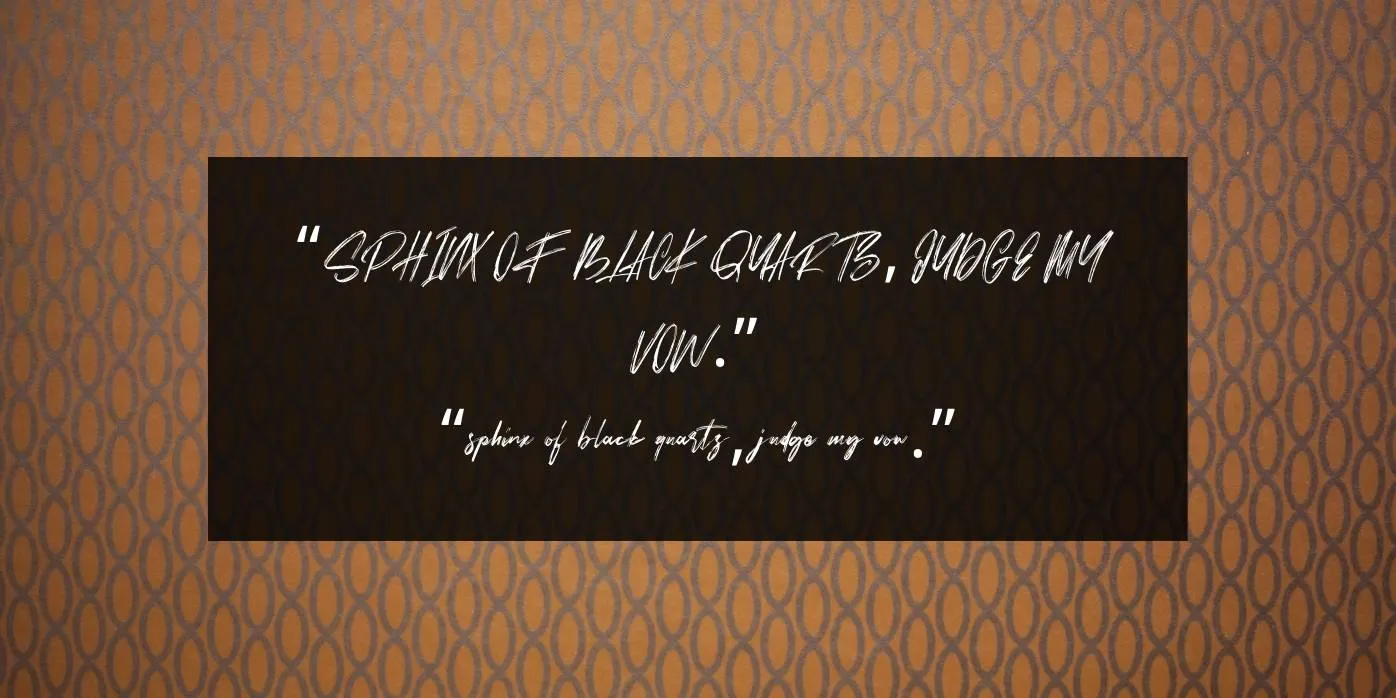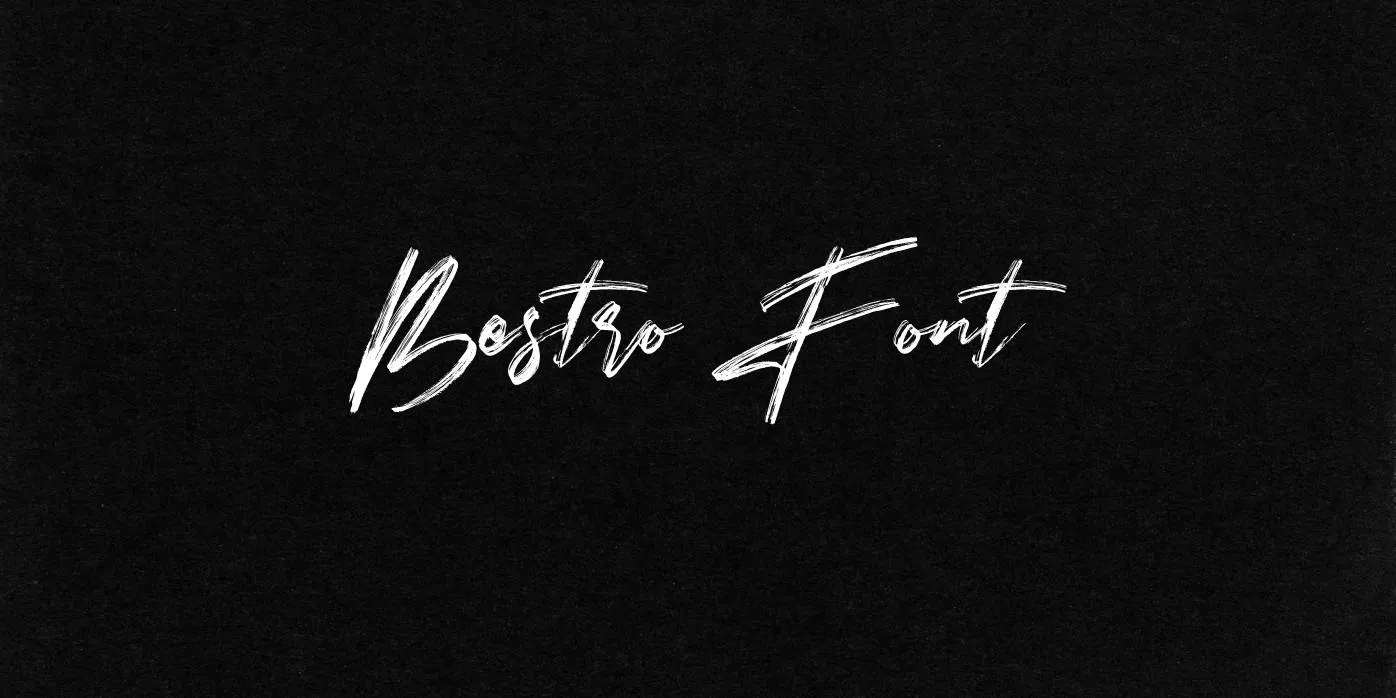
Bestro Font
Today, we discuss a classy font family known as Bestro Font. This family belongs to the script font family. The designer of this typeface was Tomas Brousil. This awesome font was released on 18th January 2017.
It is well specified for the CSS. This script family has a unique design. The strokes of the letters are very thin. And, the gaps between them are also very thin.
As a result, this font looks sleek and elegant. This font comes in two styles: regular and italic. Another similar font which is babette font is perfect for different designs. Bestro Font is perfect for creating sophisticated designs.